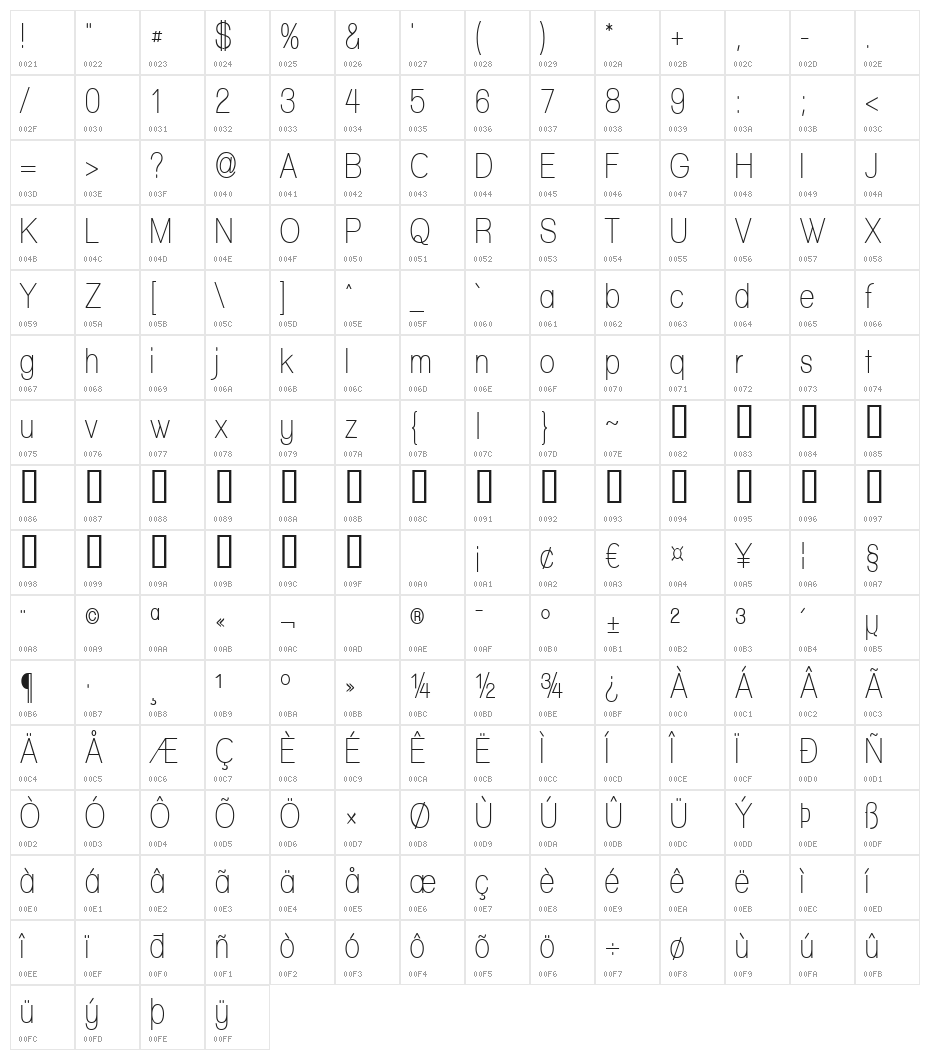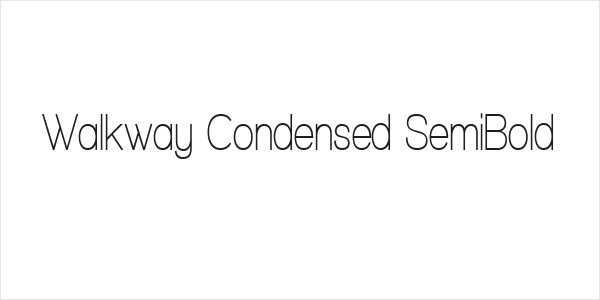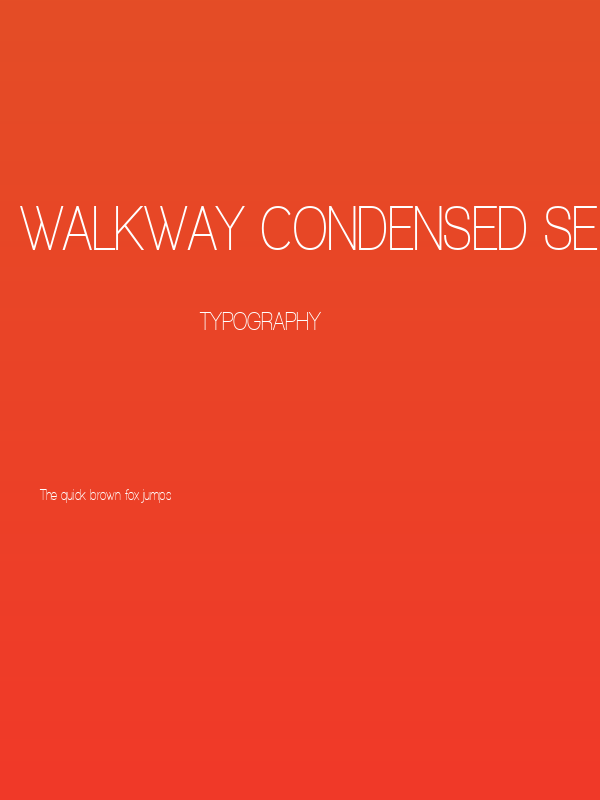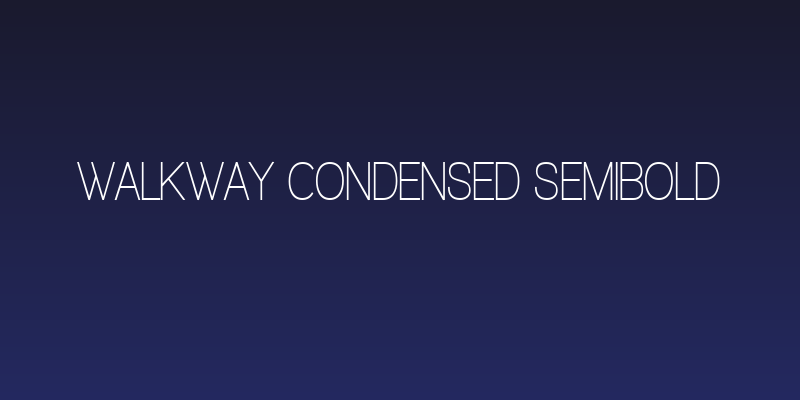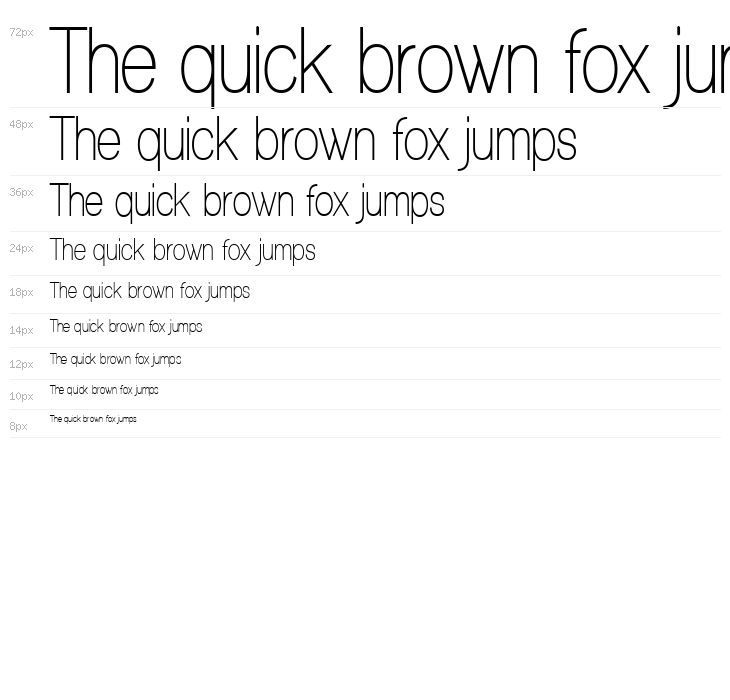
Walkway Condensed SemiBold Font
Walkway Condensed SemiBold Description
This font features a clean and modern sans-serif style with a condensed width, making it ideal for space-saving design applications. The characters are uniformly structured with a semi-bold weight, providing a balanced appearance that is both sleek and legible. The uppercase and lowercase letters maintain a consistent height ratio, enhancing readability. The numerals are straightforward and align well with the overall geometric aesthetic of the font. Special characters are included, offering versatility for various design needs. The font's simplicity and clarity make it suitable for a wide range of projects.
Proposed ProjectsIdeal for branding, editorial design, advertising, and web design where space is limited.